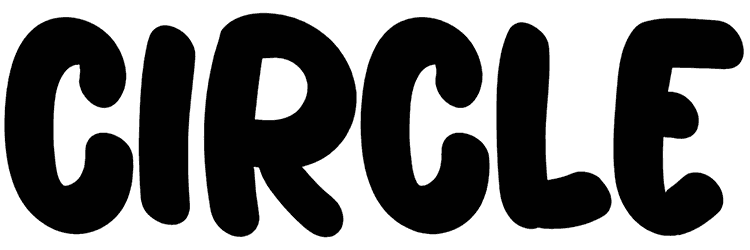
Circle Font
Give a puffy form to your illustrations with Circle font and make them engaging. This cartoon font with no lowercase letters can give an animated and friendly mood to your design.
Put this fancy font on various items, for instance, animations, poster titles, covers, apparel design, or so forth, and let it make them pleasing. Achieve the fonts of a future that never was, and download this brilliant cartoon font from your own Resource Boy!
Circle is a bold and simple display font. Simple and easy to use, this font will be very beautiful if you mix it with your various craft designs.